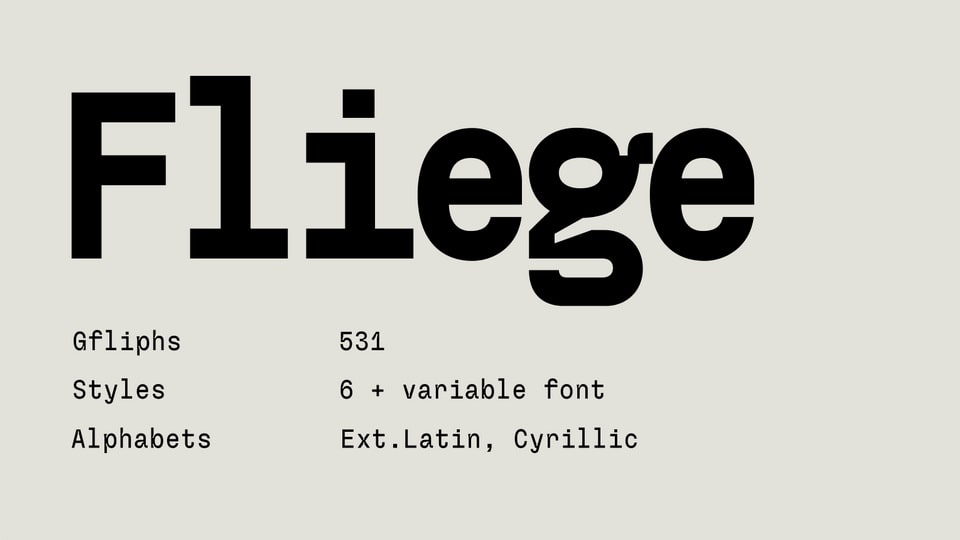
Download Fliege Mono font, a monospaced typeface with a strong personality. It is designed as a monospace font but with a human touch.
Designer: Pavel Laptev